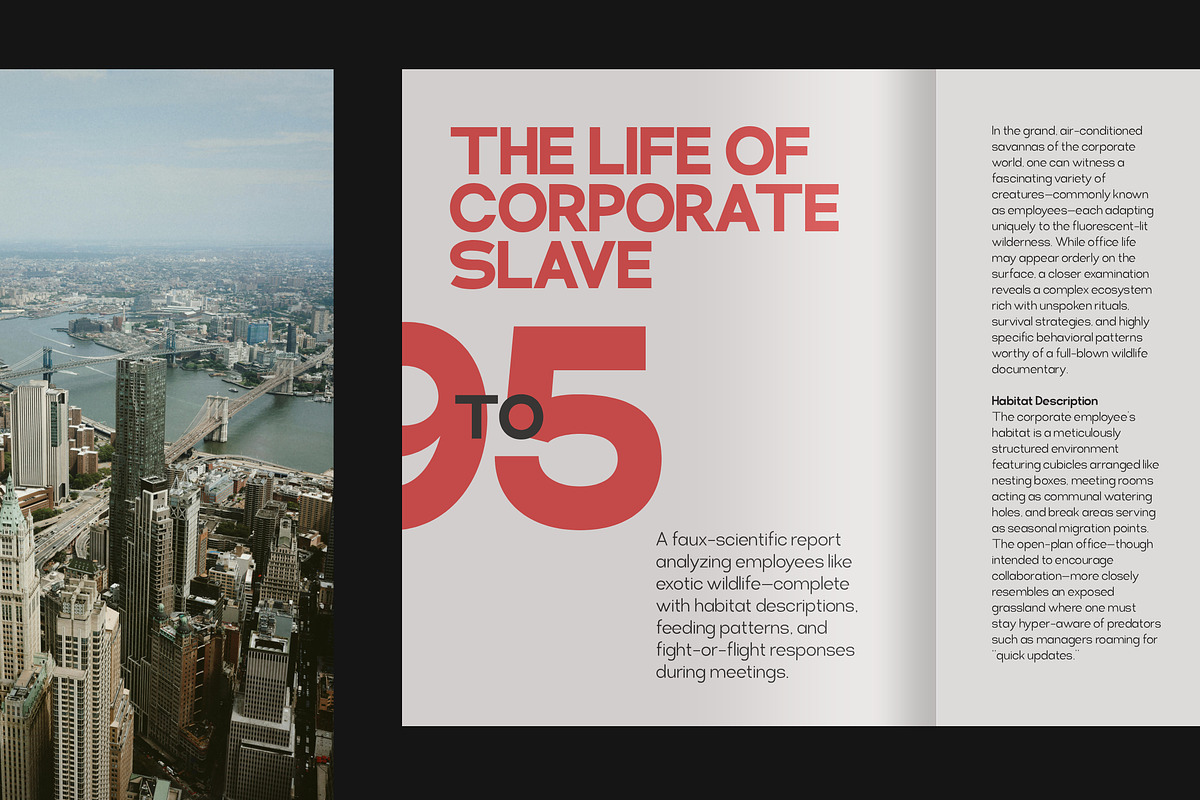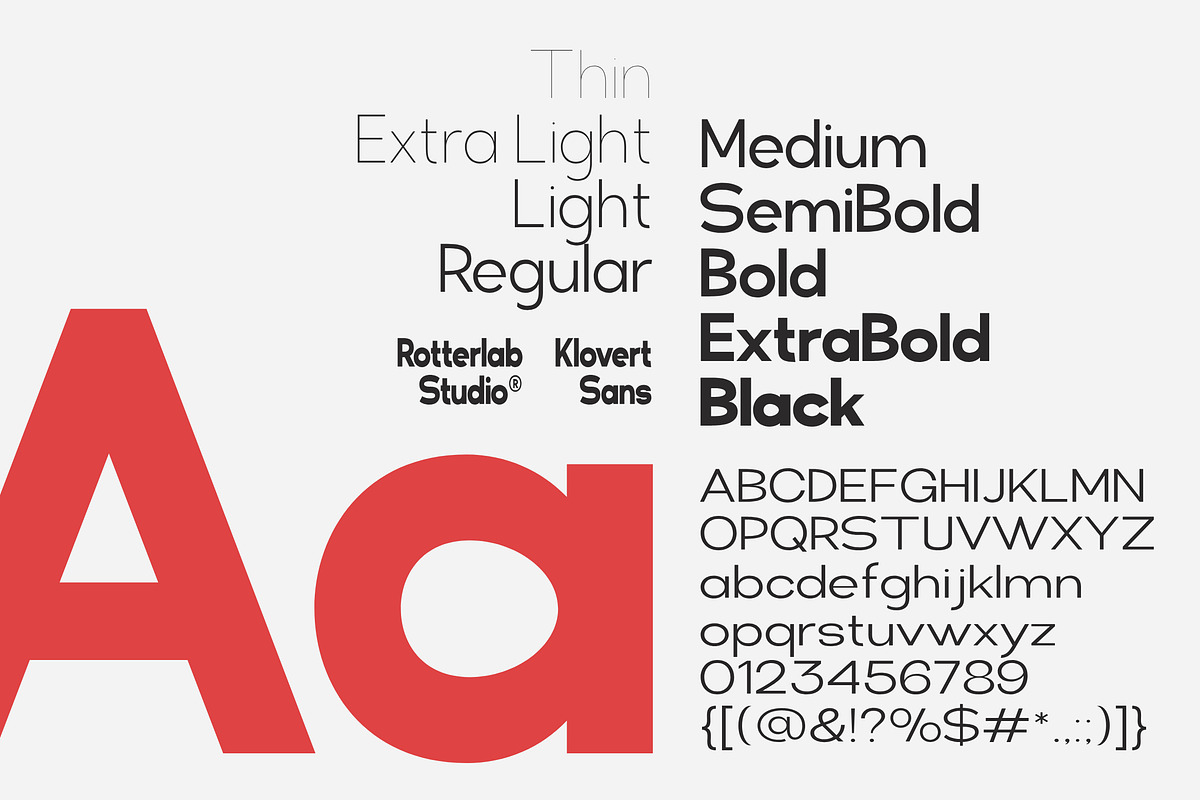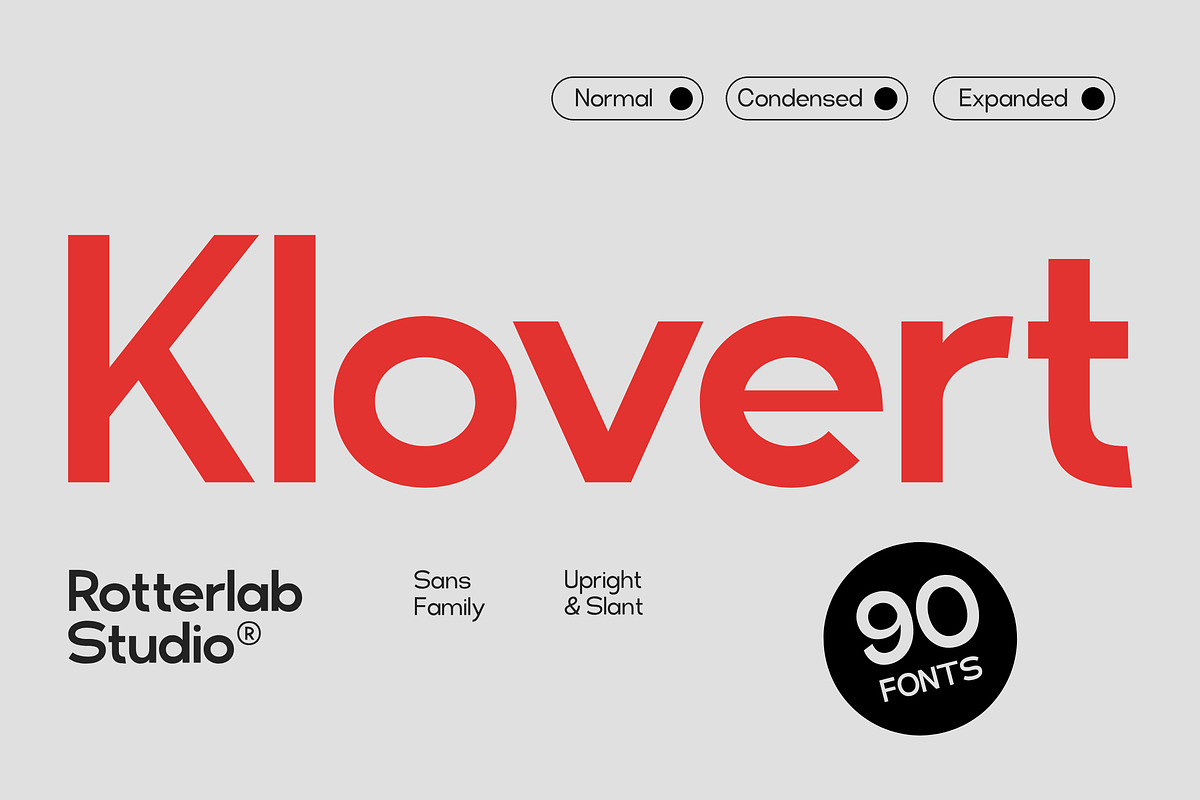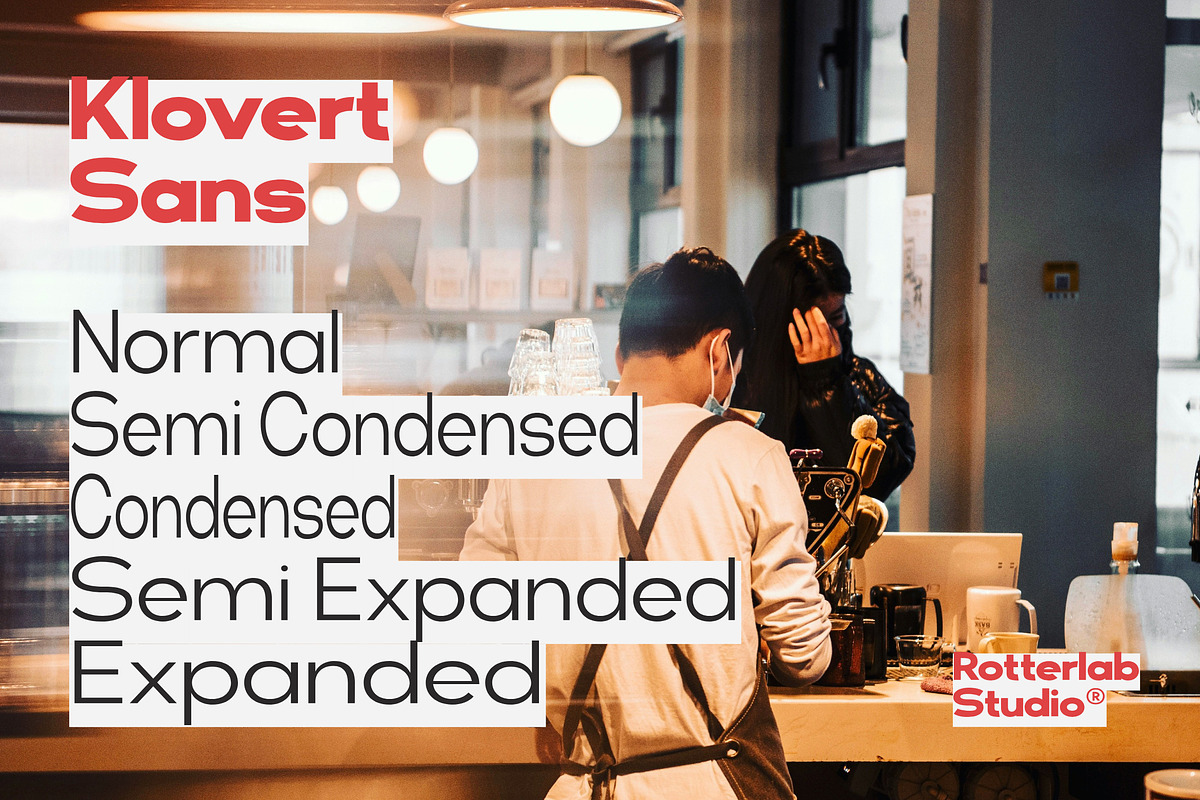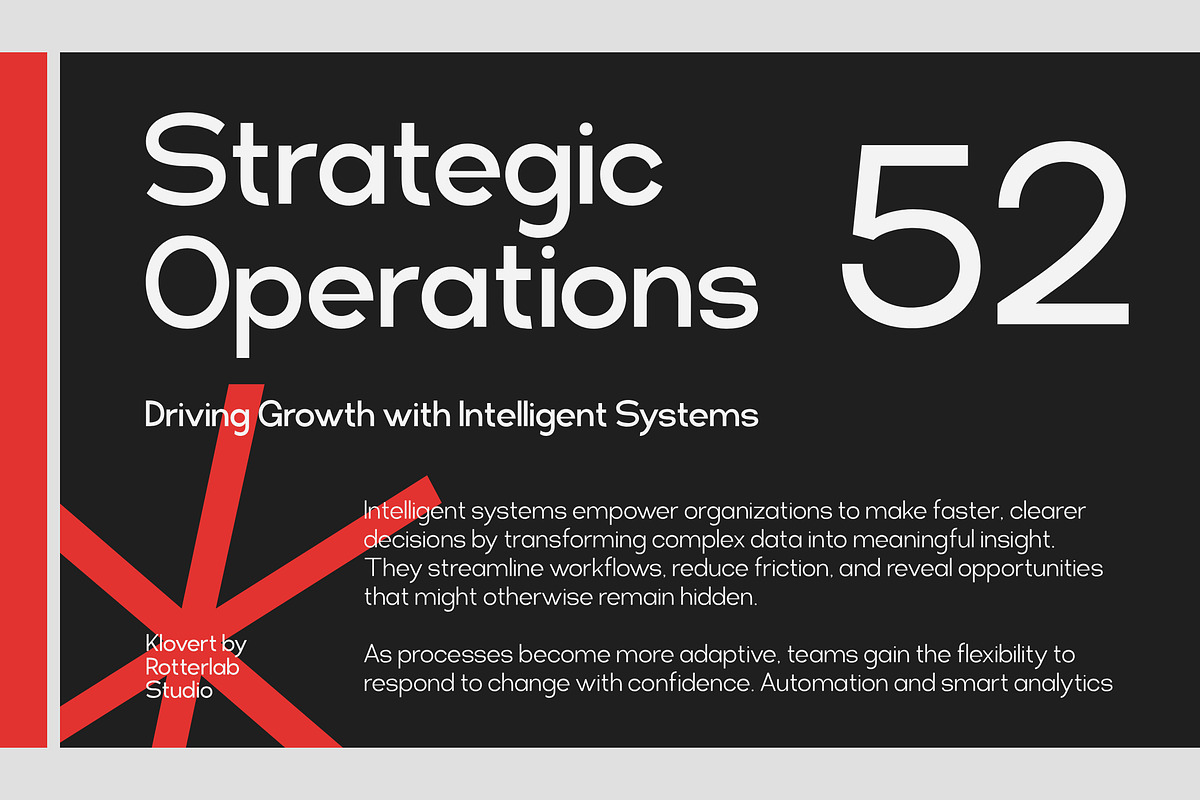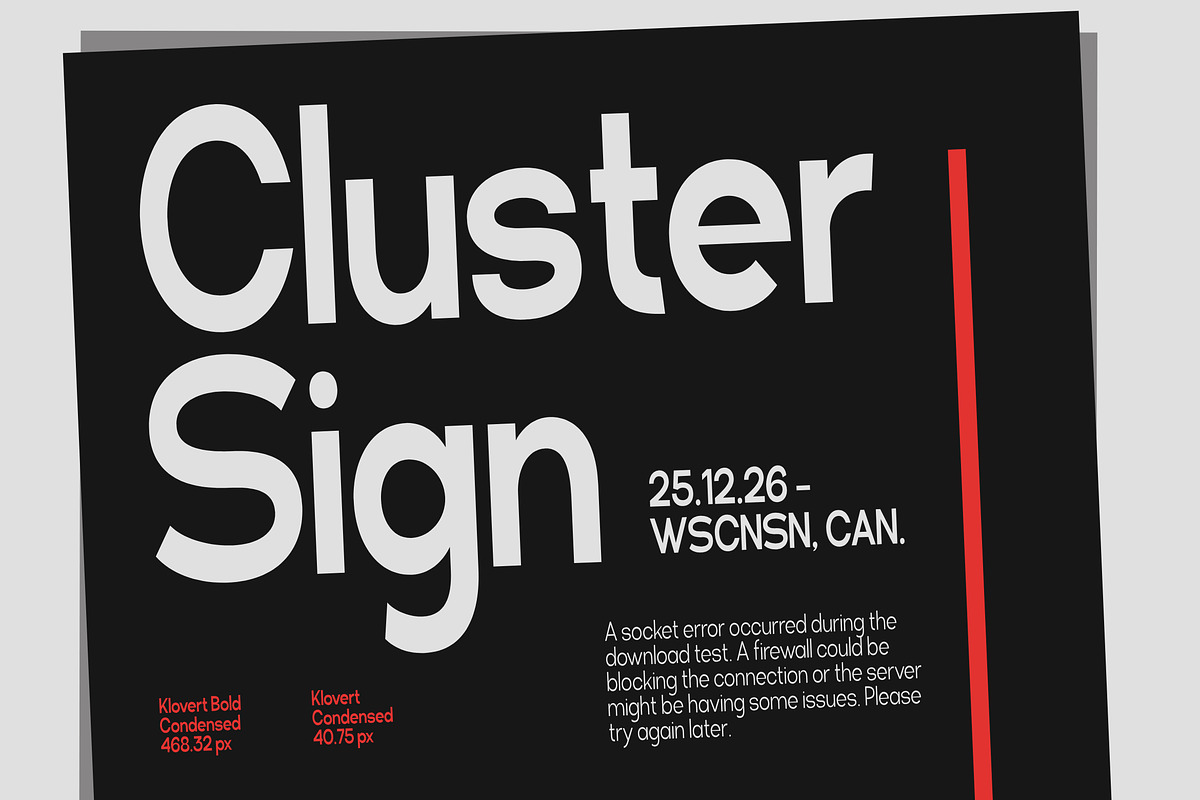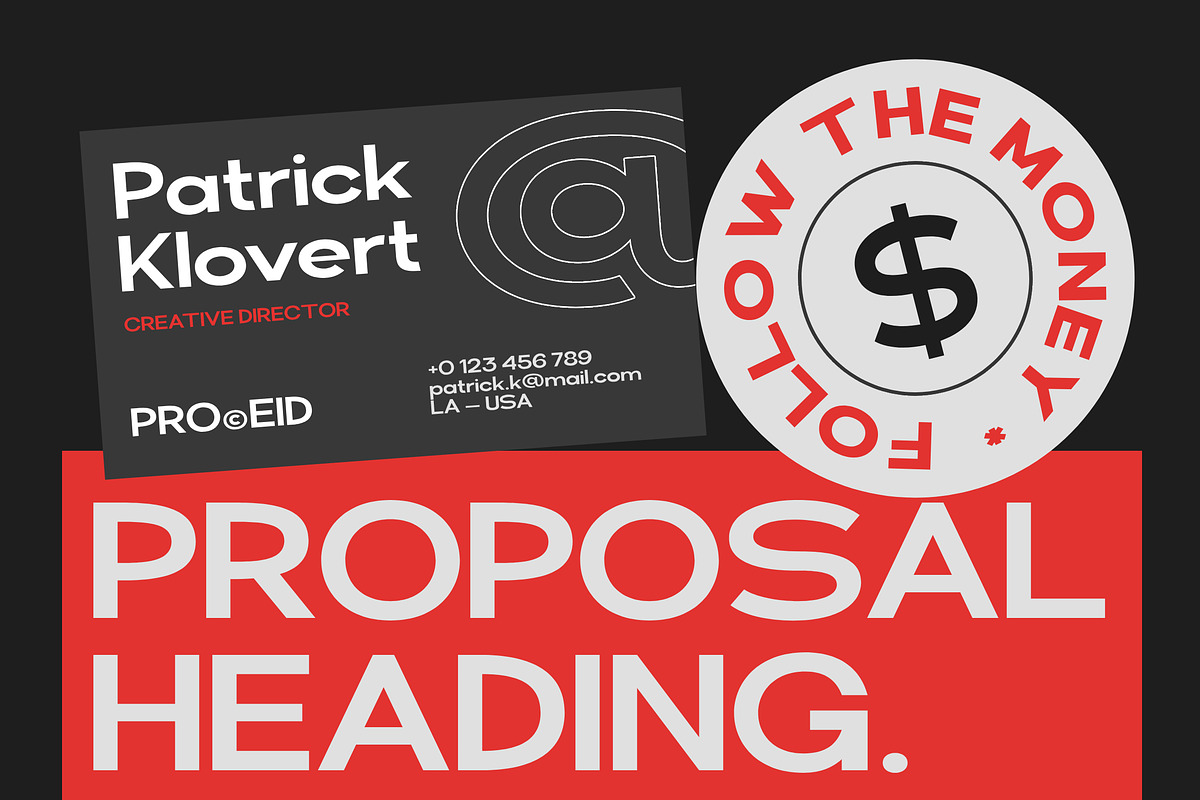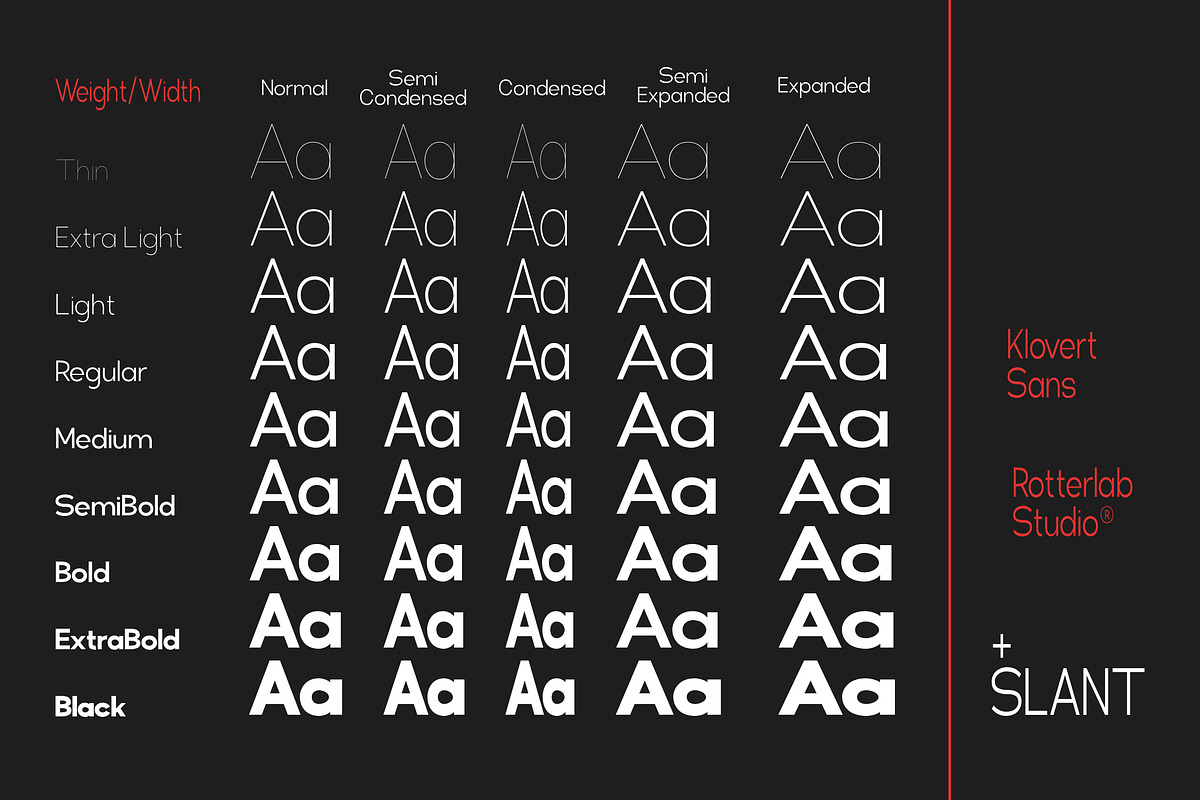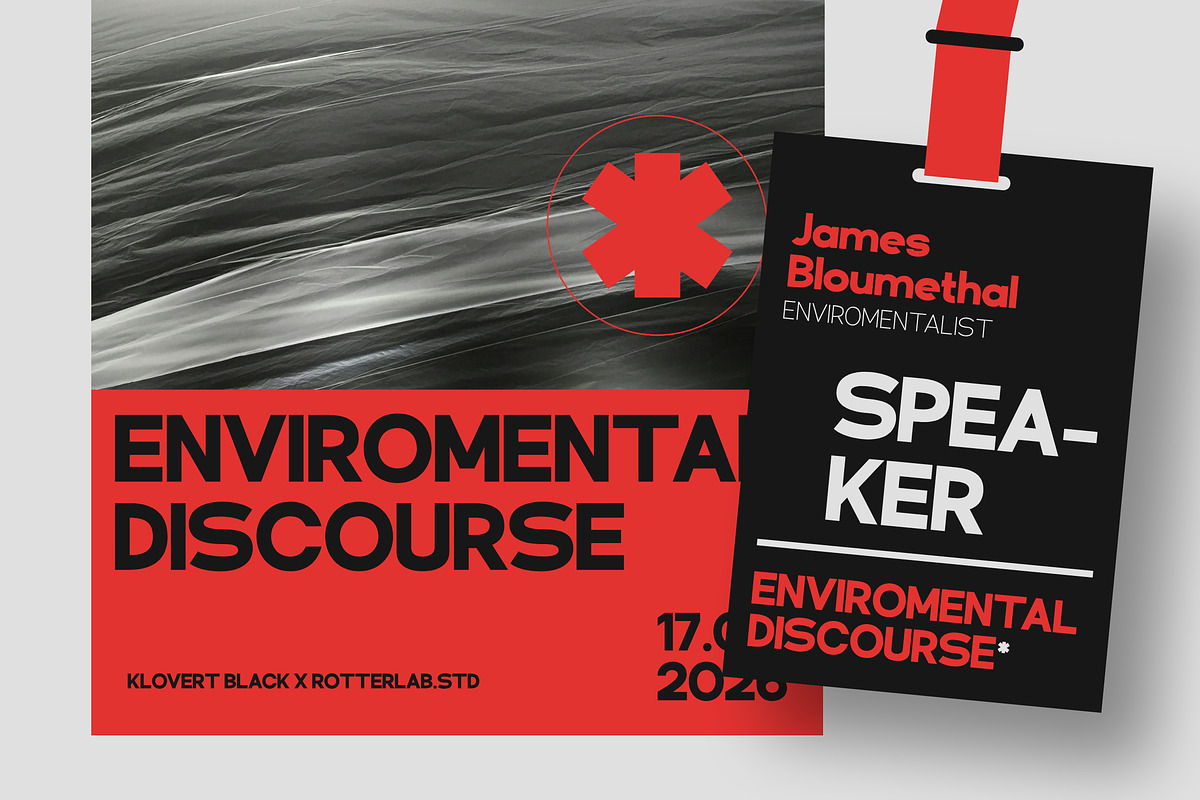
Klovert - 90 Styles Geometric Family
Klovert – Modern Sans Serif Family
Klovert is a modern sans serif typeface designed with a bold, clean, and versatile character. Created for contemporary design needs, Klovert strikes a balance between professionalism and expressiveness, making it suitable for a wide range of visual applications.
This typeface comes as a complete font family with multiple styles, allowing designers to explore flexible and dynamic typography across different projects.
Modern & Clean Sans Serif
Upright & Slant Styles
90 Pre-Made Fonts
Strong, consistent letterforms
Highly legible and versatile
Perfect for :
Branding & Logo Design
Posters & Advertising
Editorial & Magazines
Web & UI Design
Packaging & Merchandise
Klovert is built for designers who need a modern typeface with strong character and high flexibility. Whether used for headlines or body text, Klovert delivers a confident and professional appearance.